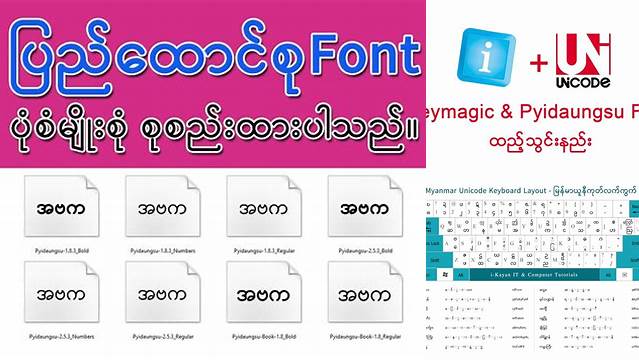
1. What is Pyidaungsu Font?
Pyidaungsu font, at its core, is a unified font designed to support the diverse scripts used in Myanmar, formerly known as Burma. This includes not just Burmese script itself, but also various ethnic scripts within the country, aiming to create a standardized digital typography experience. Imagine needing to type in Burmese, Shan, Karen, or Mon – all within the same document! That’s where the beauty of Pyidaungsu font shines. It acts as a comprehensive solution, ensuring that regardless of the script you need, you have the characters readily available. For those who work with multilingual documents or simply want to preserve and promote their cultural heritage online, having a reliable Pyidaungsu font is not just a convenience, it’s essential. It allows for accurate representation and prevents those frustrating moments when characters appear as boxes or question marks because your system lacks the necessary glyphs. Think of it as a universal translator for text, ensuring your message is clear and legible, no matter the script. The significance of this font extends beyond mere aesthetics; it’s about digital inclusion and preserving linguistic diversity in the digital age. By supporting multiple scripts, Pyidaungsu font helps bridge the digital divide, ensuring that more people can access and participate in the online world using their native languages. It's a powerful tool for communication, education, and cultural preservation.
2. Why You Need an All-in-One Pyidaungsu Font
Let’s be real, guys, juggling multiple fonts for different scripts is a total headache. Imagine having to switch between various fonts just to type a single document containing Burmese and another ethnic script. That's where the magic of an all-in-one Pyidaungsu font comes in! It simplifies your workflow by consolidating all the necessary characters into a single font family. This means no more font-switching fiascos and a smoother, more efficient typing experience. Think of it like having a Swiss Army knife for your typography – all the tools you need in one handy package. But the benefits don't stop there. An all-in-one Pyidaungsu font also ensures consistency across your documents. Different fonts can have varying styles and character widths, leading to a visually jarring and unprofessional look. By using a unified font, you maintain a clean and cohesive appearance, making your work look polished and professional. This is especially crucial for official documents, publications, and anything else where presentation matters. Moreover, having a single font simplifies file sharing and collaboration. When you use multiple fonts, you run the risk of the recipient not having the same fonts installed on their system, leading to display errors or font substitutions. An all-in-one solution minimizes these compatibility issues, ensuring that your documents look the same regardless of who opens them. So, in essence, an all-in-one Pyidaungsu font is not just a convenience; it's a necessity for anyone working with multiple Burmese scripts. It streamlines your workflow, enhances consistency, and ensures compatibility, saving you time, frustration, and potential headaches down the road.
3. Key Features to Look for in a Pyidaungsu Font
Okay, so you're convinced you need an all-in-one Pyidaungsu font, but how do you choose the right one? Not all fonts are created equal, guys. There are some key features you should be on the lookout for to ensure you're getting a font that truly meets your needs. First and foremost, script coverage is paramount. Does the font support all the scripts you need, including Burmese, Shan, Karen, Mon, and others? A comprehensive font will include a wide range of glyphs, ensuring you can type in any script without missing characters. Next up, readability is crucial. A well-designed font will be easy to read both on screen and in print, even at smaller sizes. Pay attention to the letterforms, spacing, and overall visual clarity of the font. Nobody wants to squint their eyes trying to decipher text! Style and aesthetics also play a role. Does the font match the tone and style of your project? Some fonts are more formal and professional, while others are more casual and playful. Choose a font that reflects the message you're trying to convey. Another important factor is licensing. Is the font free for commercial use? Can you modify it? Make sure you understand the licensing terms before using a font in your projects to avoid any legal issues. Finally, consider technical aspects like font format (e.g., TTF, OTF) and compatibility with your operating system and software. Most modern fonts are available in OpenType (OTF) format, which offers better features and cross-platform compatibility. By keeping these key features in mind, you can narrow down your options and choose a Pyidaungsu font that not only looks great but also works seamlessly with your workflow.
5. Top Free Pyidaungsu Fonts Available
Okay guys, so we've talked about where to find free Pyidaungsu fonts, but let's get specific. What are some of the top free Pyidaungsu fonts you can download right now? Here are a few of my favorites, and what makes them stand out: First up, we have the Padauk font. This is a widely used font known for its excellent readability and support for a wide range of Burmese characters. It's a solid choice for both body text and headings, and it's available under a free and open-source license. Another fantastic option is the Myanmar3 font. This font is designed to be visually appealing and highly legible, making it a popular choice for websites and publications. It supports a broad range of Burmese scripts and is also available for free. If you're looking for something with a more modern feel, check out the Noto Sans Myanmar font. This font is part of Google's Noto font family, which aims to support all the world's languages. It's clean, versatile, and works well in a variety of contexts. For those working with specific ethnic scripts, the Shan and Mon fonts available from various sources are worth exploring. These fonts are designed to accurately represent the nuances of these scripts, ensuring clear and legible text. When choosing a font, it's a good idea to download and test it in your own projects. See how it looks on different devices and in different software applications. This will help you ensure that the font meets your specific needs and aesthetic preferences. Remember to always check the licensing terms before using a font, even if it's labeled as